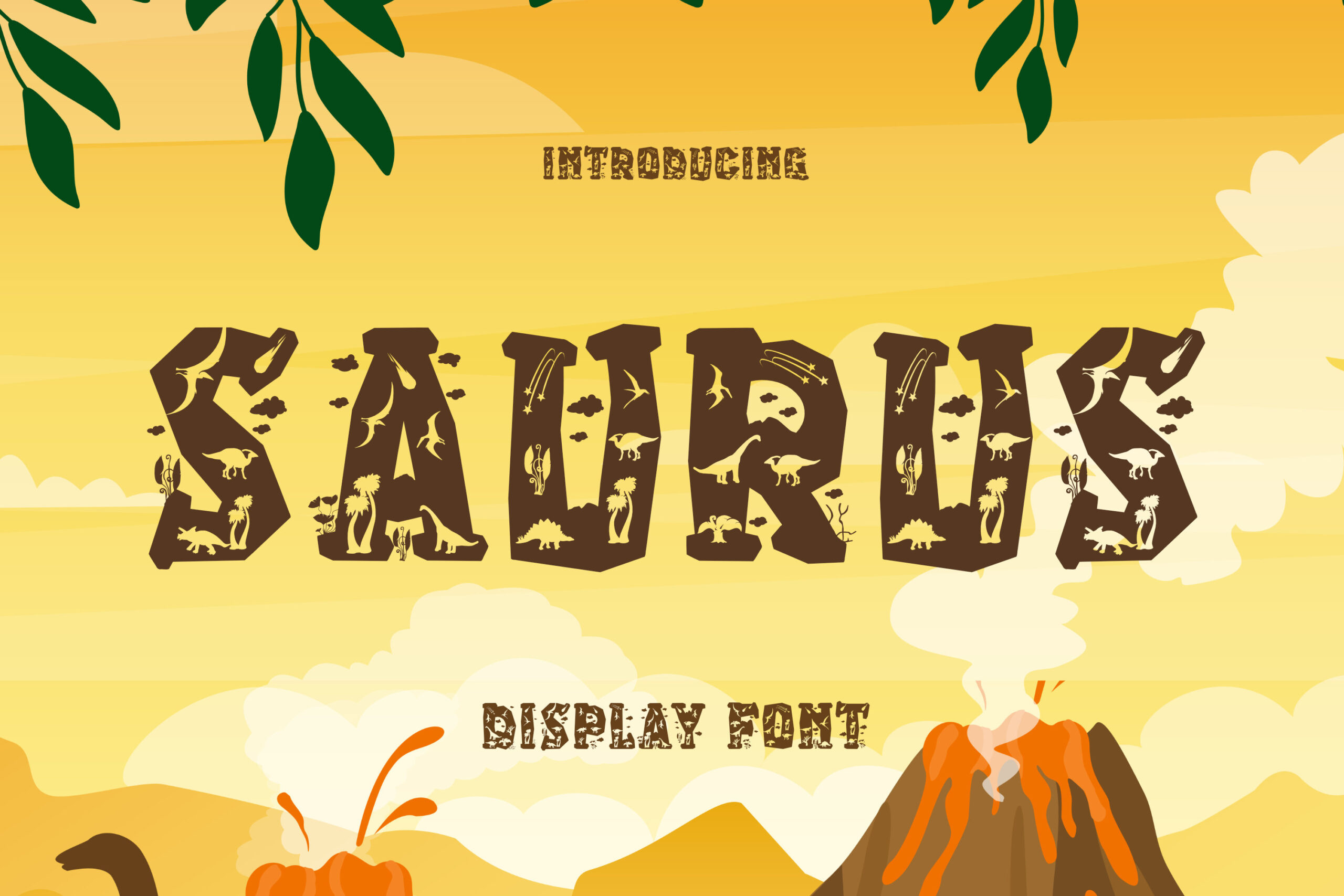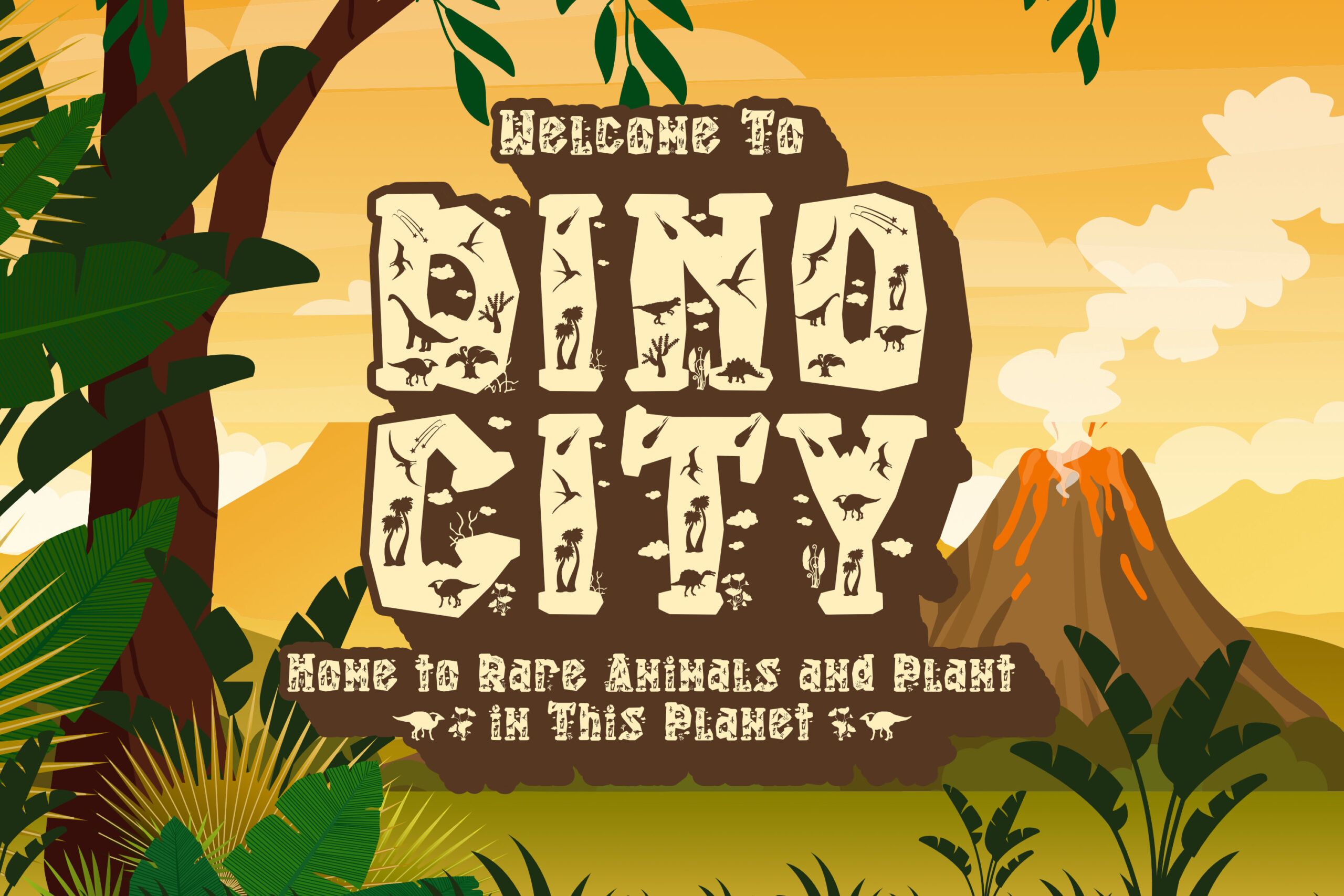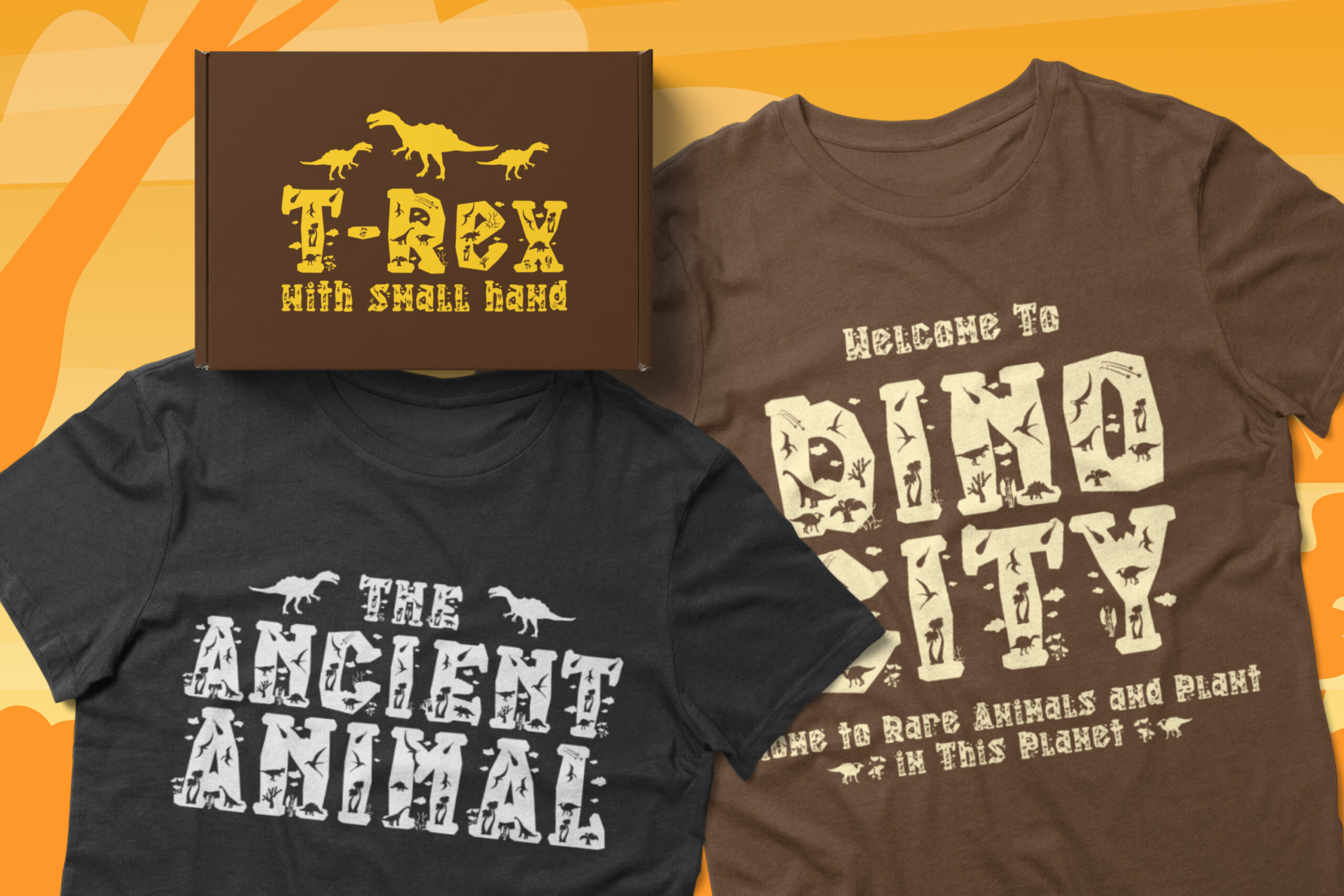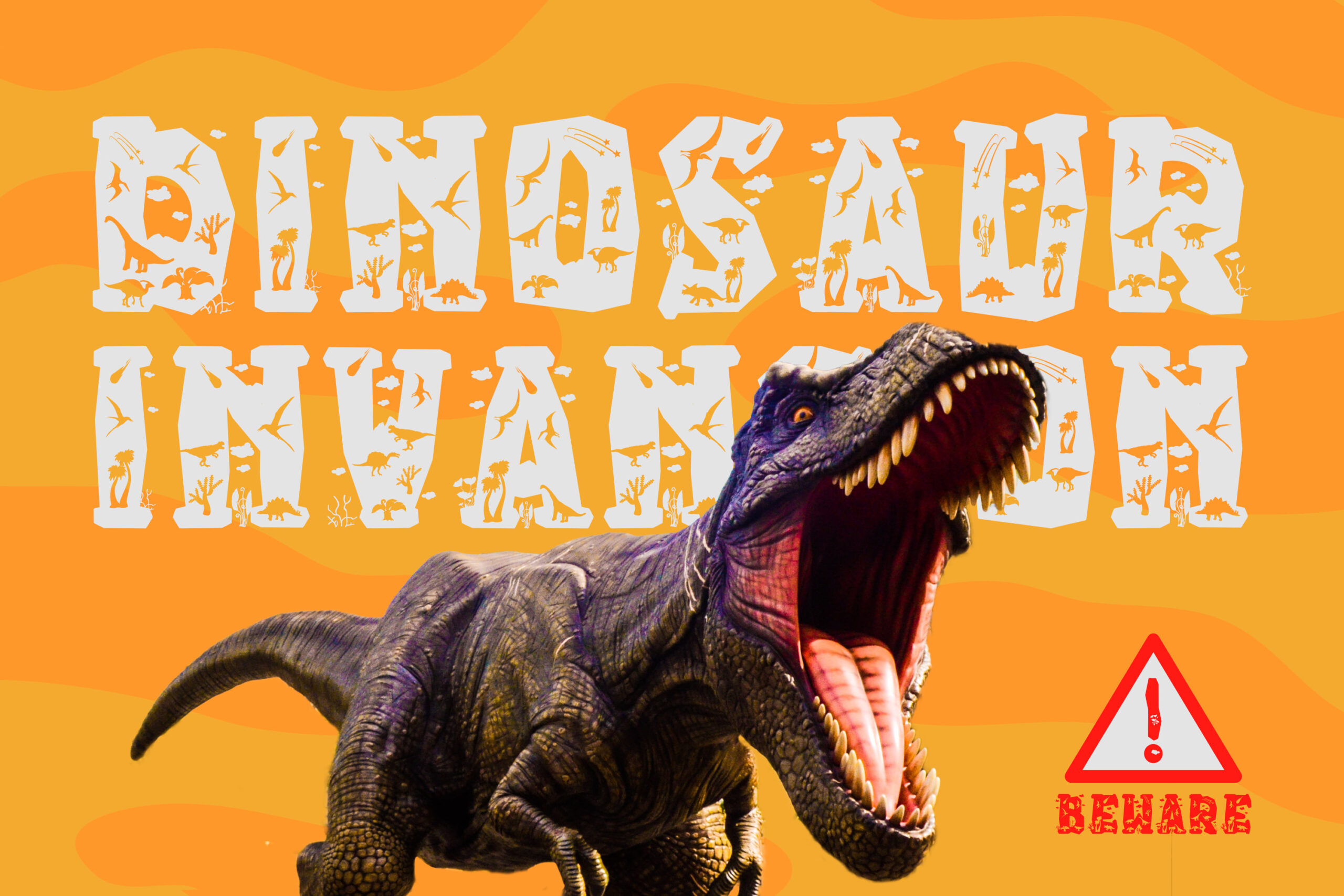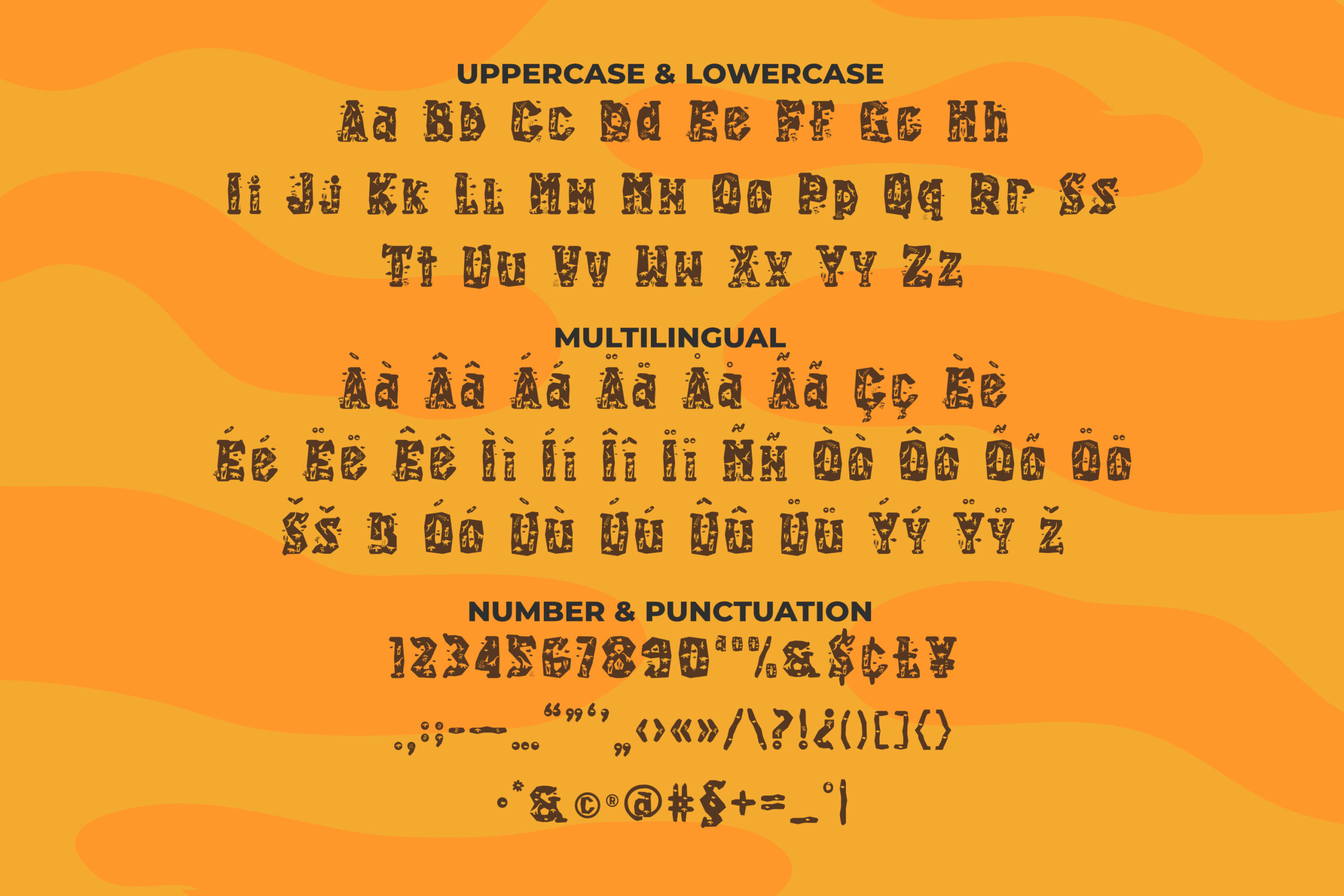
Saurus is a playful and bold display font inspired by the prehistoric era, packed with charming dinosaur silhouettes and ancient foliage embedded within each letterform. Designed to capture the imagination of children and dino-lovers alike, this font is perfect for educational projects, adventure-themed merchandise, museum promotions, or playful branding that needs a fun and wild Jurassic touch.
From T-Rex to flying pterosaurs, Saurus delivers a full prehistoric experience in every glyph. With uppercase, lowercase, multilingual support, numbers, and punctuation, this font offers complete versatility. Whether you’re designing a Dino Park poster, a kid’s birthday invitation, or themed t-shirts, Saurus makes your design roar with creativity.